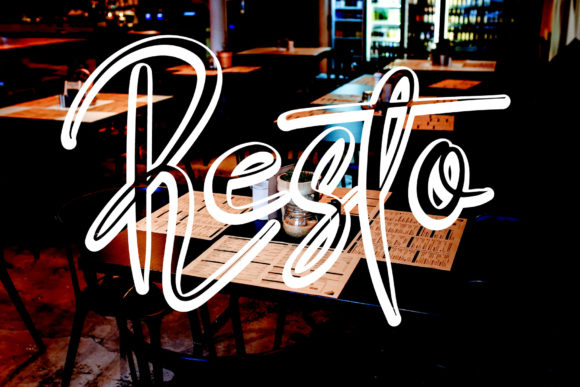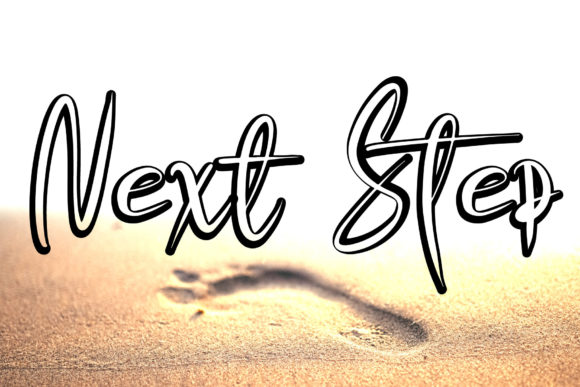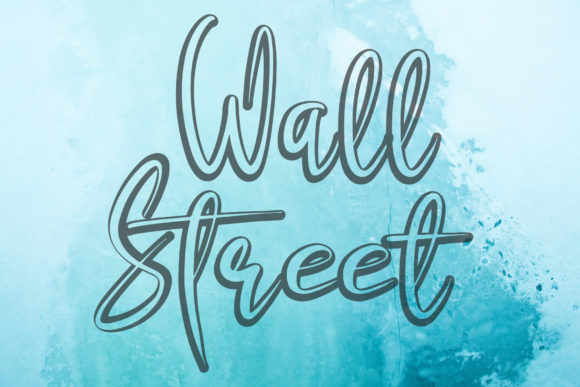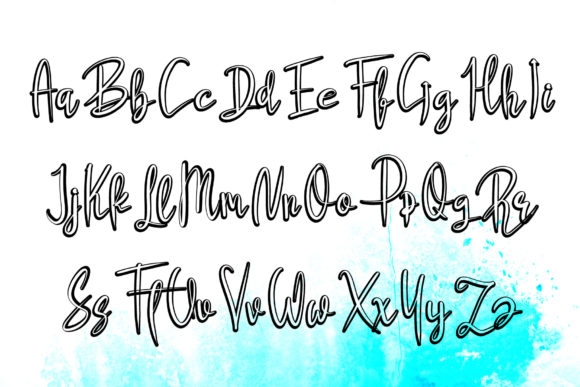
Fly over Font
About Fly over Font
Fly Over is a captivating and enchanting calligraphy typeface, radiating romance and exuding a stunning allure as its characters gracefully dance along the baseline. This typeface is more than just letters; it’s an artistic expression that adds a touch of luxury and sophistication to any design project you envision.
The romantic essence of Fly Over is immediately evident in its flowing and elegant strokes. Each character is crafted with precision, creating a seamless dance along the baseline that imparts a sense of grace and beauty. This typeface is not merely a collection of letters; it is a visual symphony that enhances the overall aesthetic of your design.
Incorporating Fly Over into your projects elevates them to new heights, infusing a luxurious spark that captures attention and leaves a lasting impression. Whether applied to invitations, branding, or any creative endeavor, this calligraphy typeface adds a touch of refinement, turning ordinary designs into extraordinary works of art.
The captivating nature of Fly Over extends beyond its visual appeal. It creates an immersive experience, drawing viewers into the romantic dance of characters and setting the tone for an elegant and sophisticated atmosphere. It’s a typeface that goes beyond words, conveying a sense of luxury that resonates with those who encounter it.
Fly Over’s versatility ensures its seamless integration into various design contexts, making it suitable for a wide range of applications. Whether you’re working on a wedding invitation, a branding project, or any design that requires a touch of romance and luxury, Fly Over rises to the occasion, making your creative vision come alive.
In conclusion, Fly Over is more than just a calligraphy typeface; it’s a romantic masterpiece that transforms your design projects into expressions of elegance and luxury. Let the characters dance along the baseline, adding a captivating spark to your creations and ensuring that they stand out with a timeless and enchanting allure.